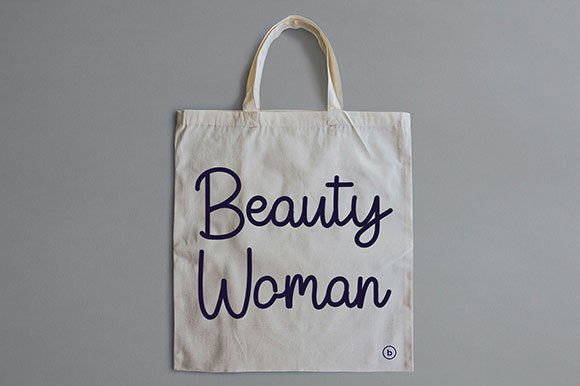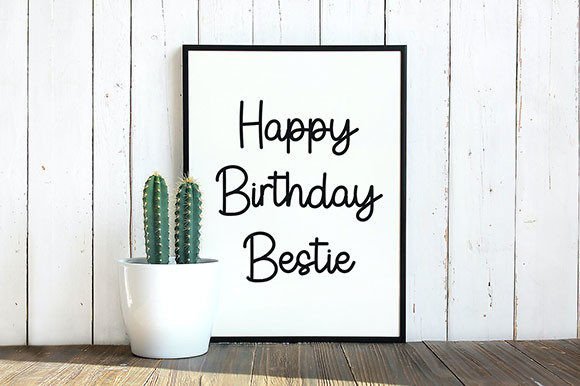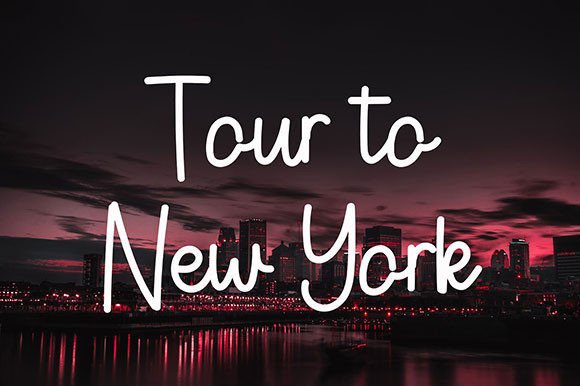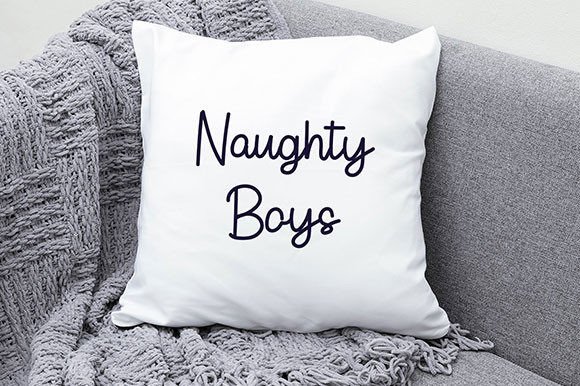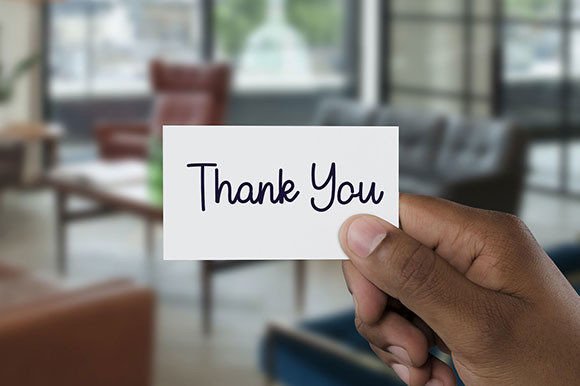
Callista Font
About Callista Font
Callista is a simple and charming handwritten font, suitable for various projects such as quotes, logos, blog headers, posters, ribbons, fashion, clothing, letters, invitations, stationery, etc.